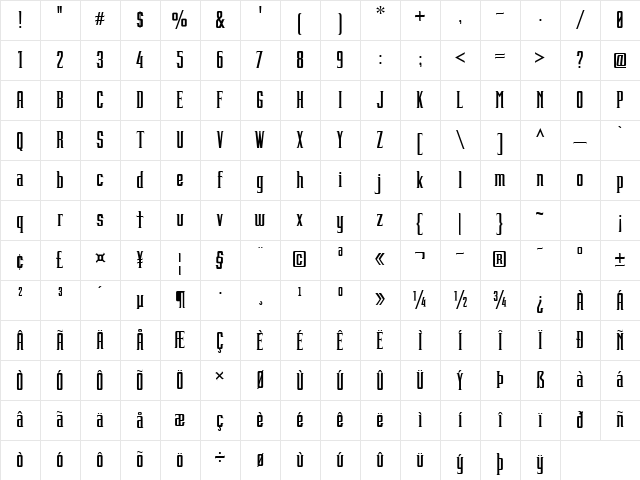
Afterflash Regular
Foundry: Toto
Designer: Cesar I. Gulmatico Jr
Afterflash Family
Design Context for Afterflash
Afterflash is a composed and adaptable typeface that performs quietly and consistently across a wide range of design contexts.